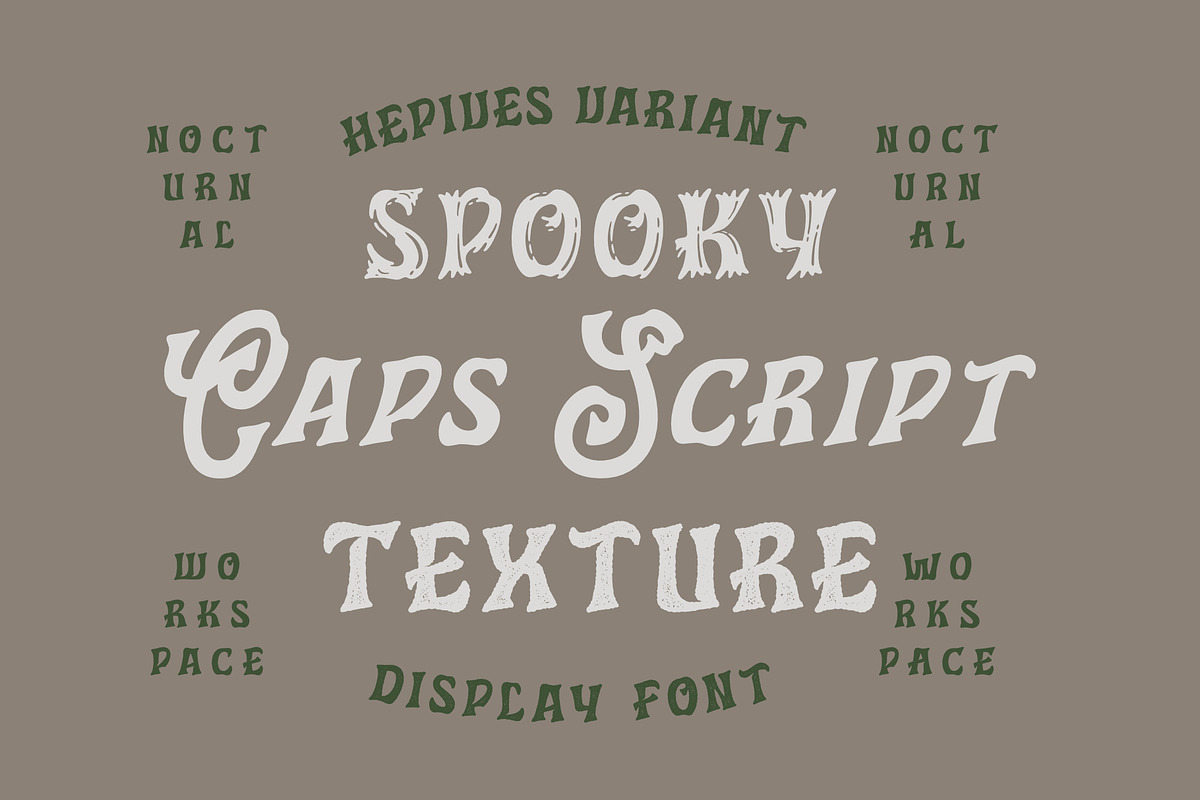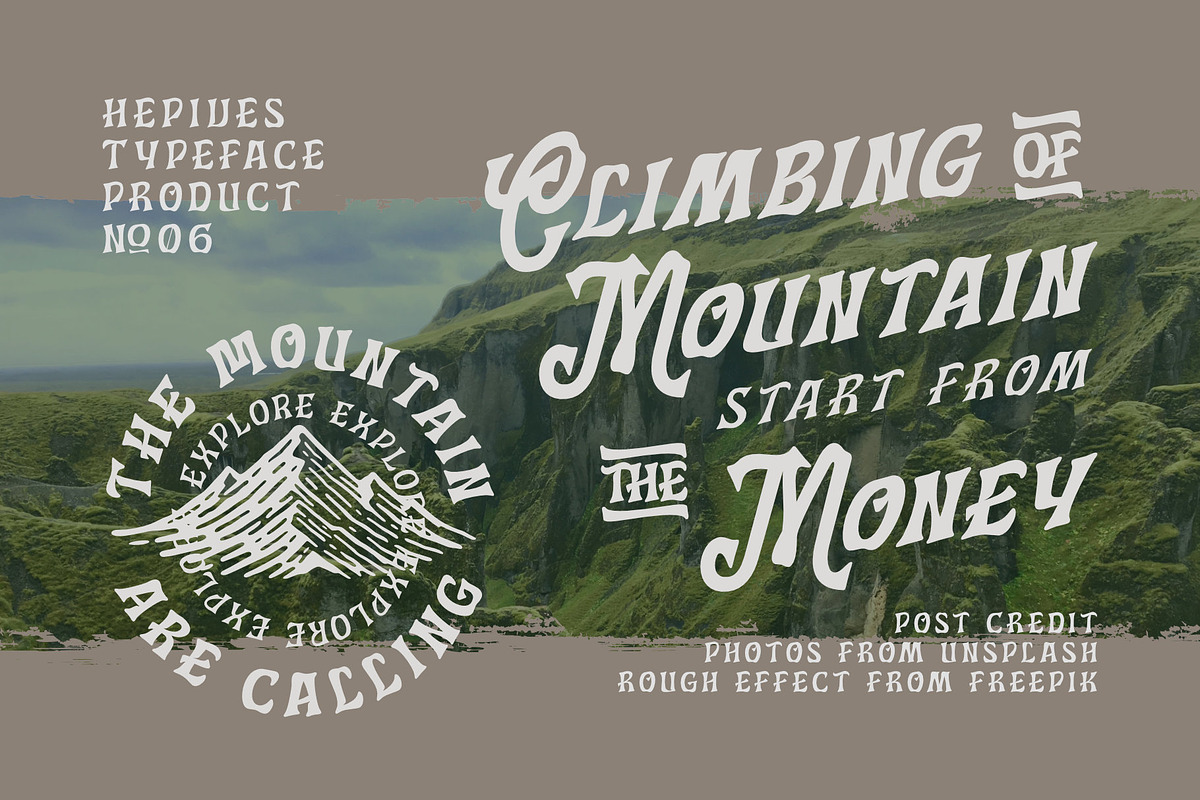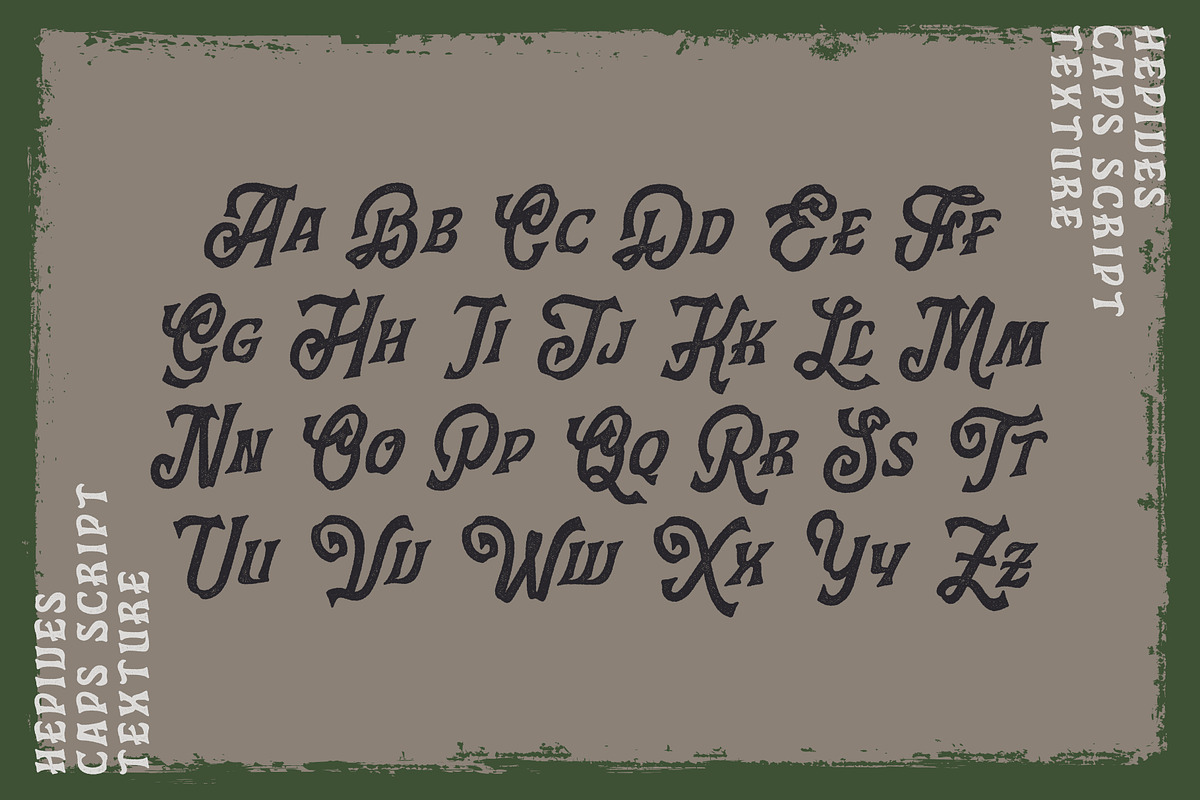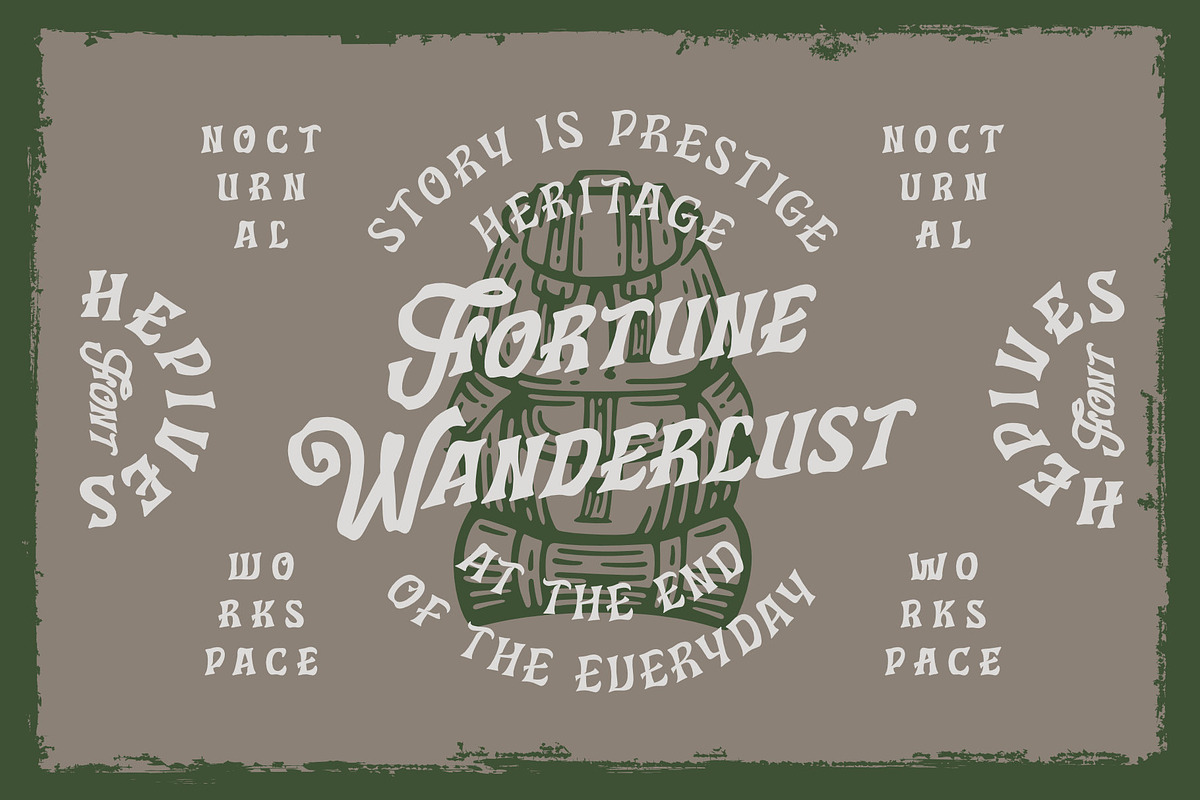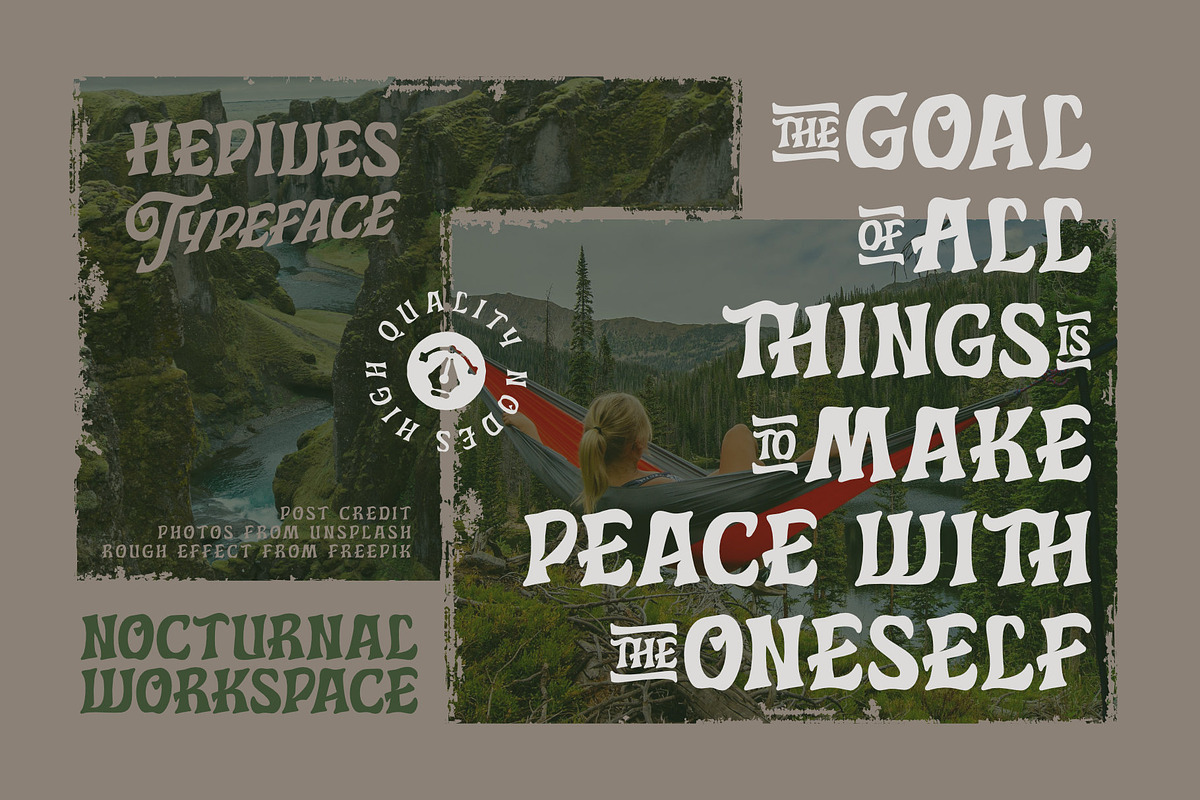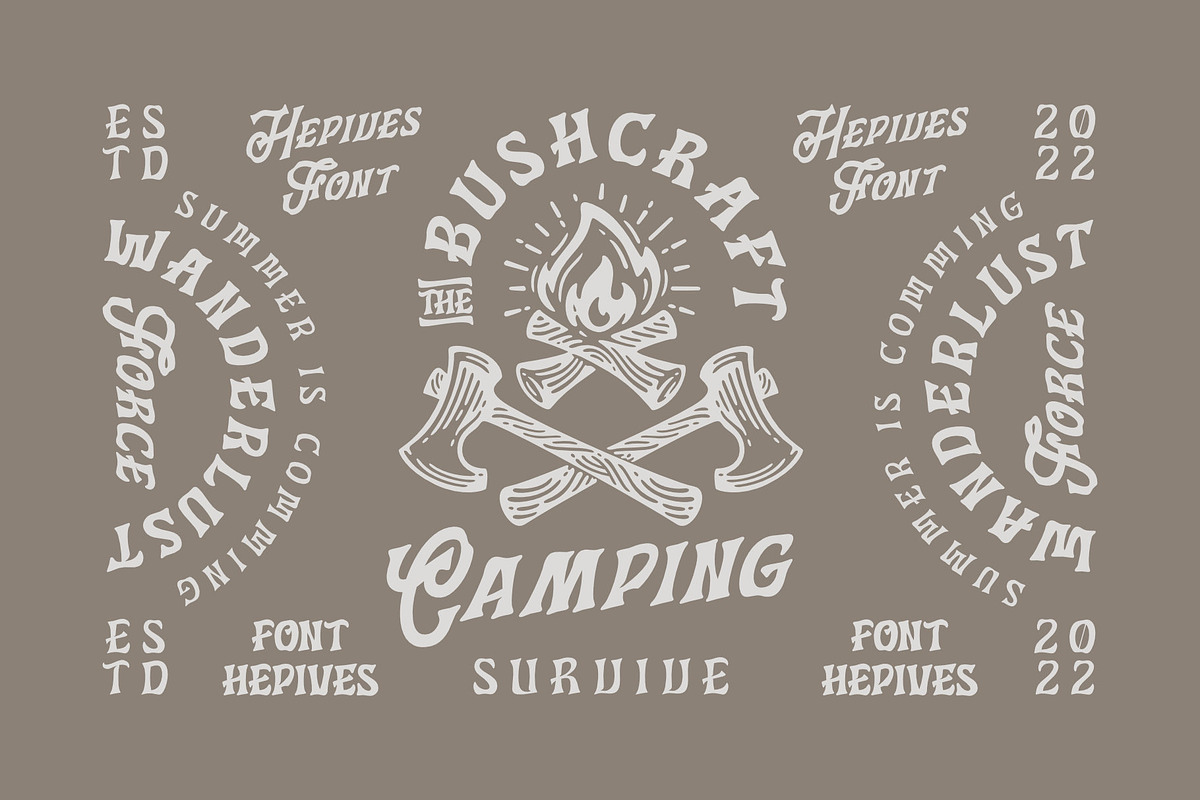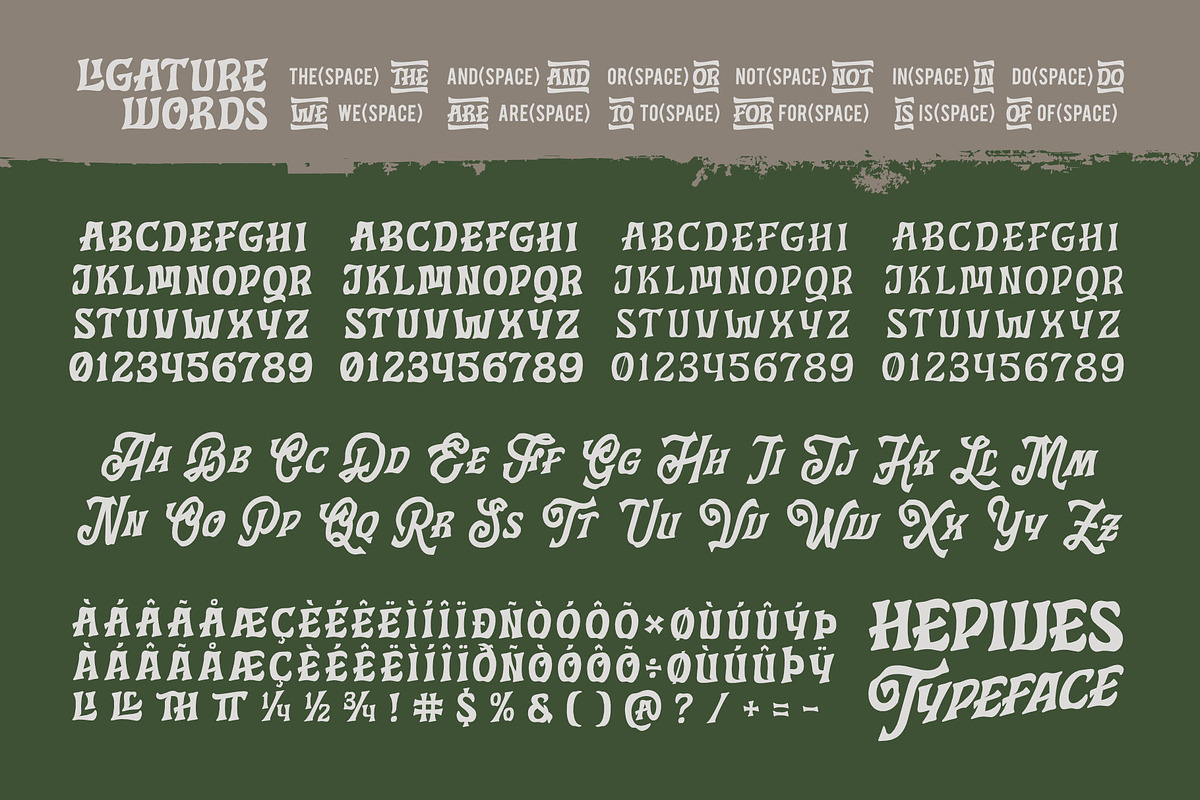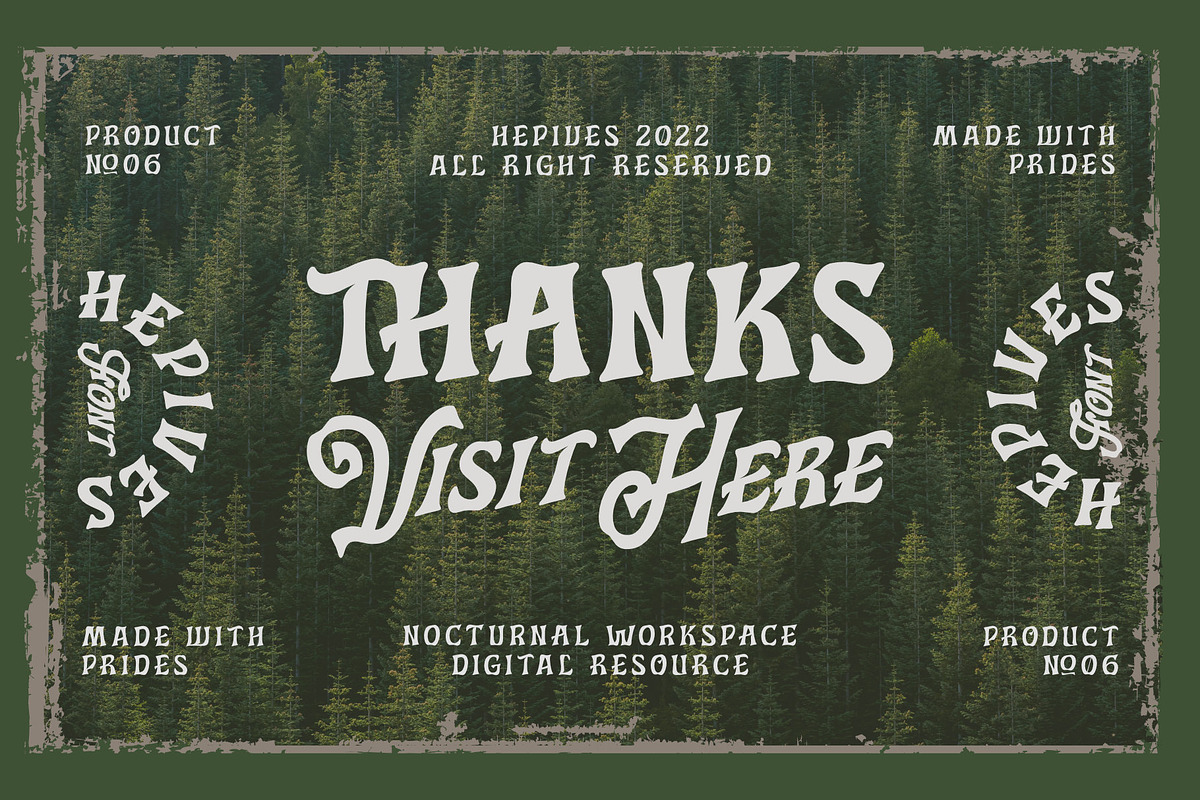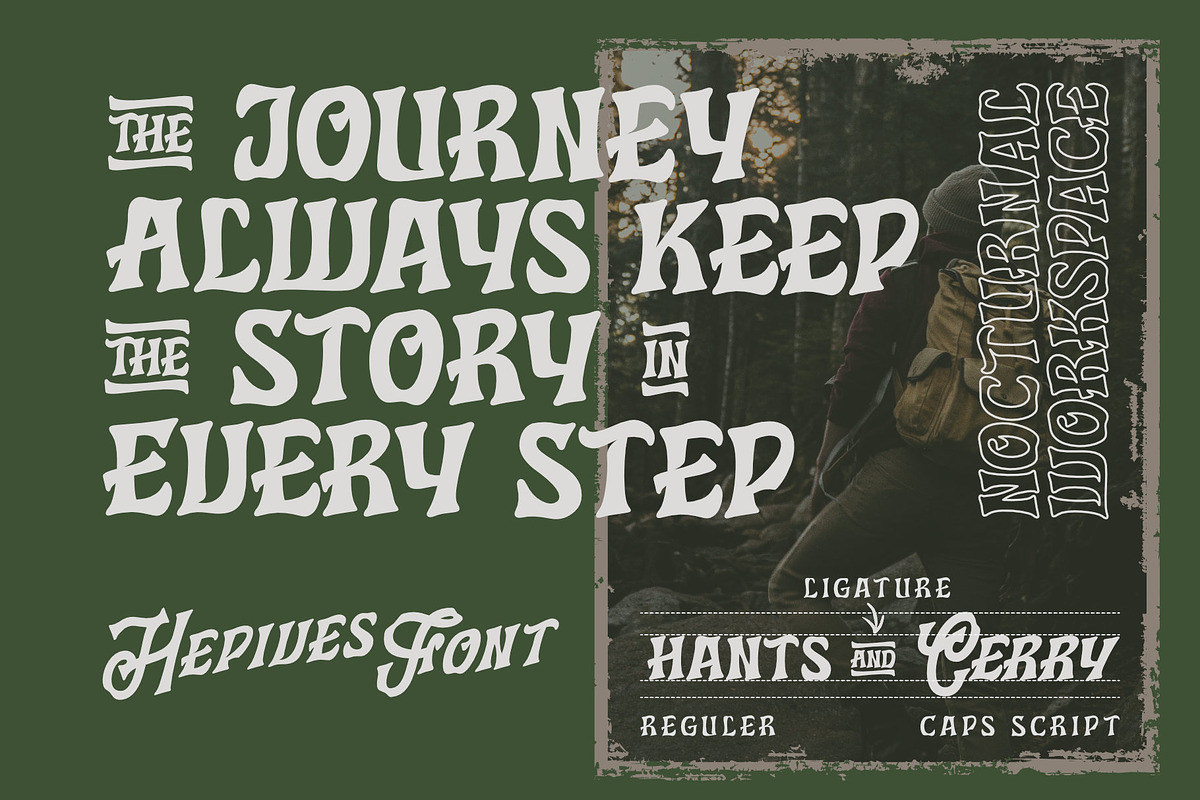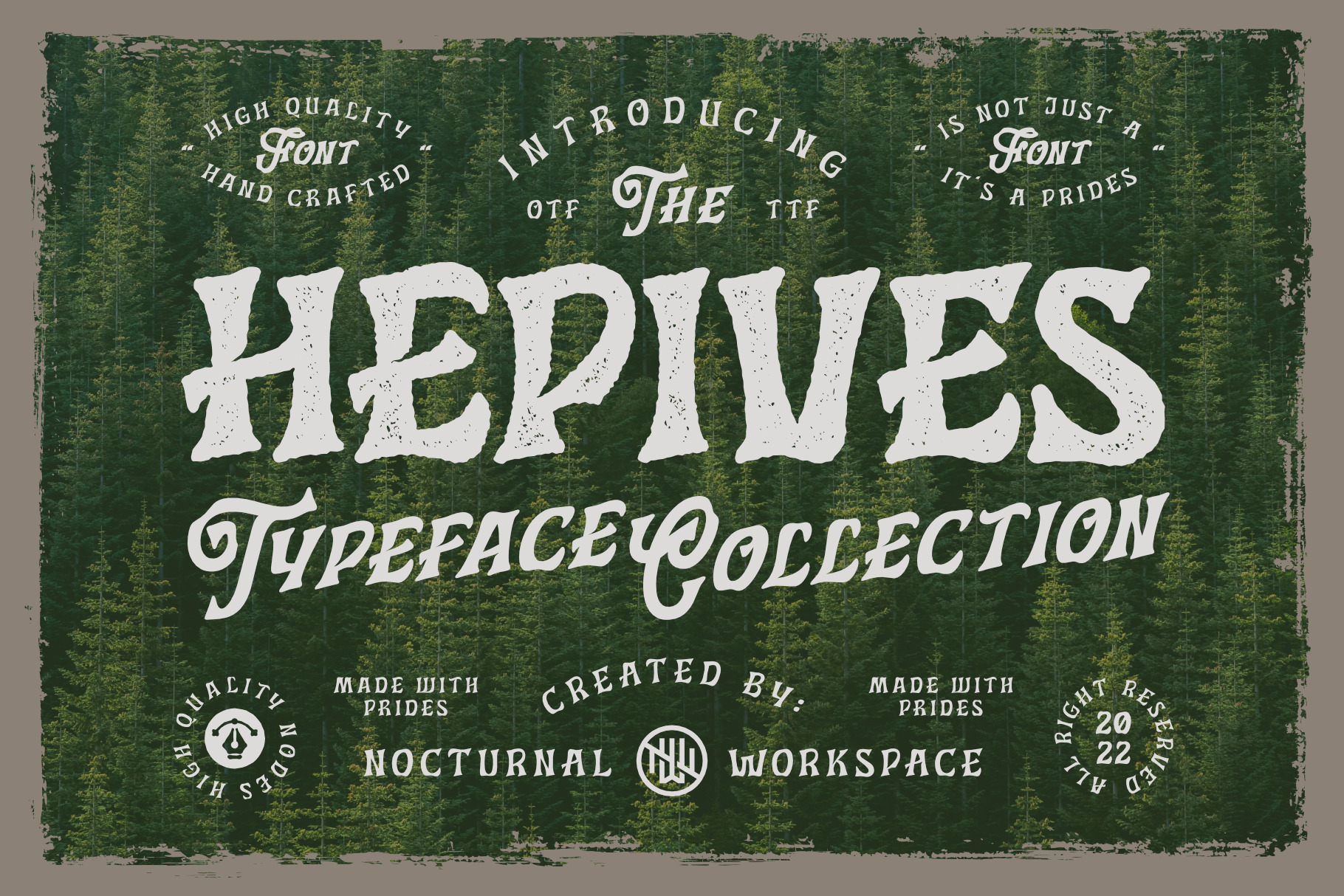
Hepives Font Family
Hepives born to be a clothing trademark for the adventurous lover community. Initially we only made a typographic logo with the name "HEPIVES" then we developed it again into a font. inspired by old vintage denim labels, old clothes commercials, labels on 90s tapes.. Ideal for use in logos, flyers, invitations, labels, clothes and more.
- Hepives Reguler Font
- Hepives Semi-Light Font
- Hepives Caps-Script Font
- Hepives Reguler Texture Font
- Hepives Caps-Script Texture Font
- Hepives Spooky Font (Halloween Version)
- Standard Ligature
- Stylistic Alternate
- Fraction, Numerator, Denominator
- Includes a range of multilingual characters.